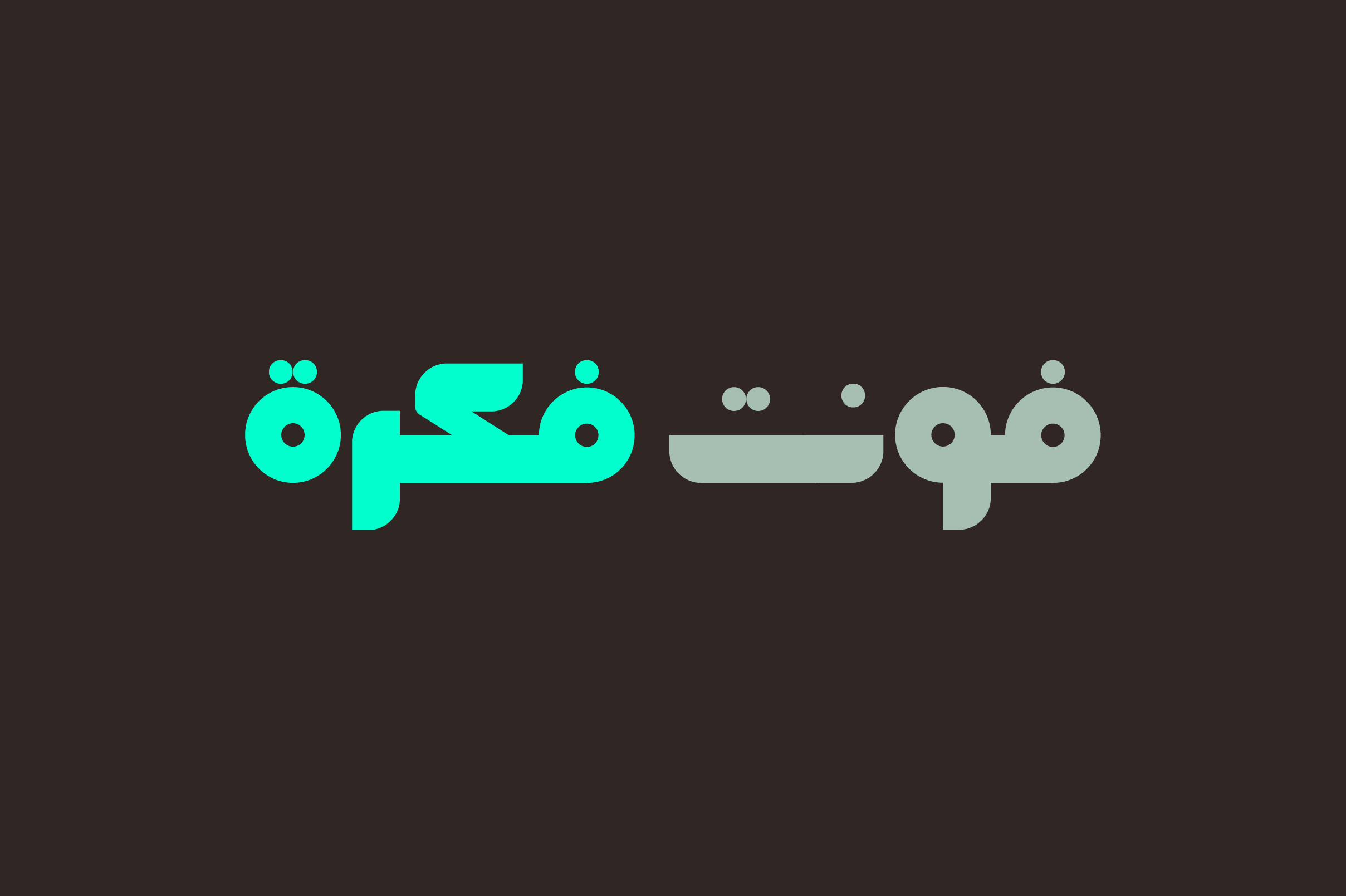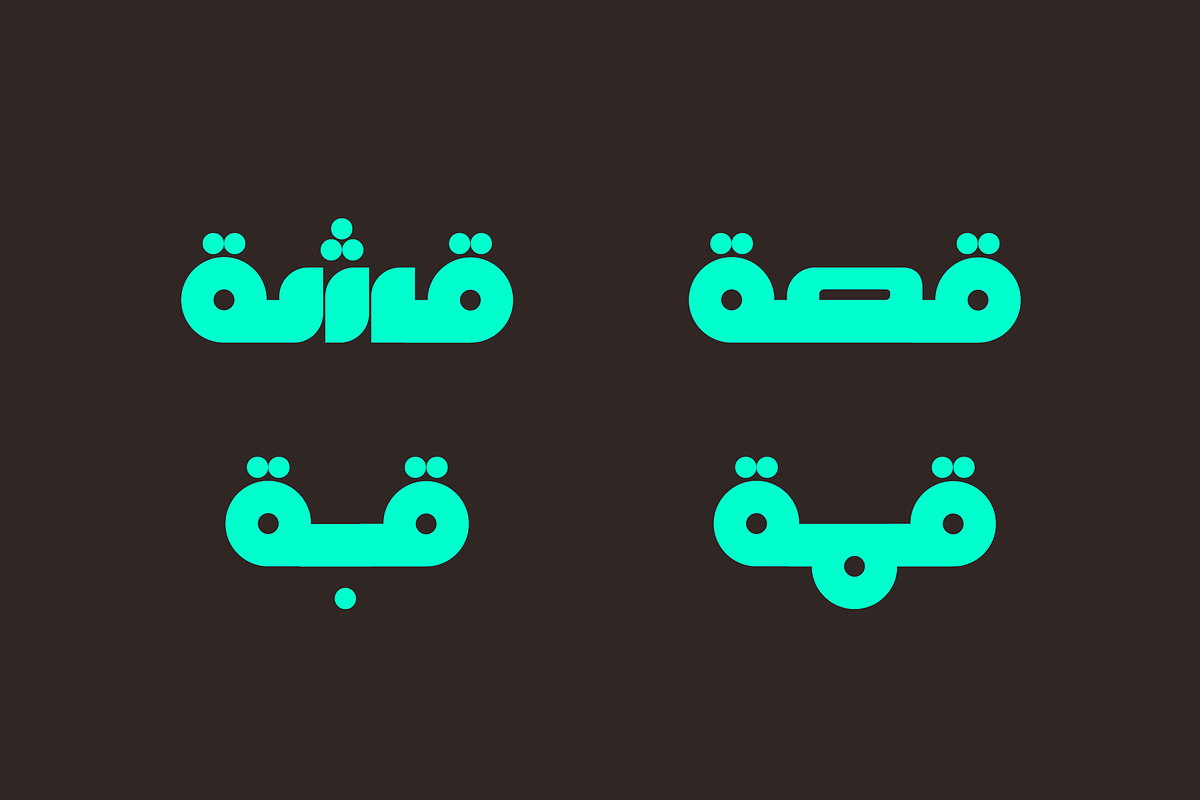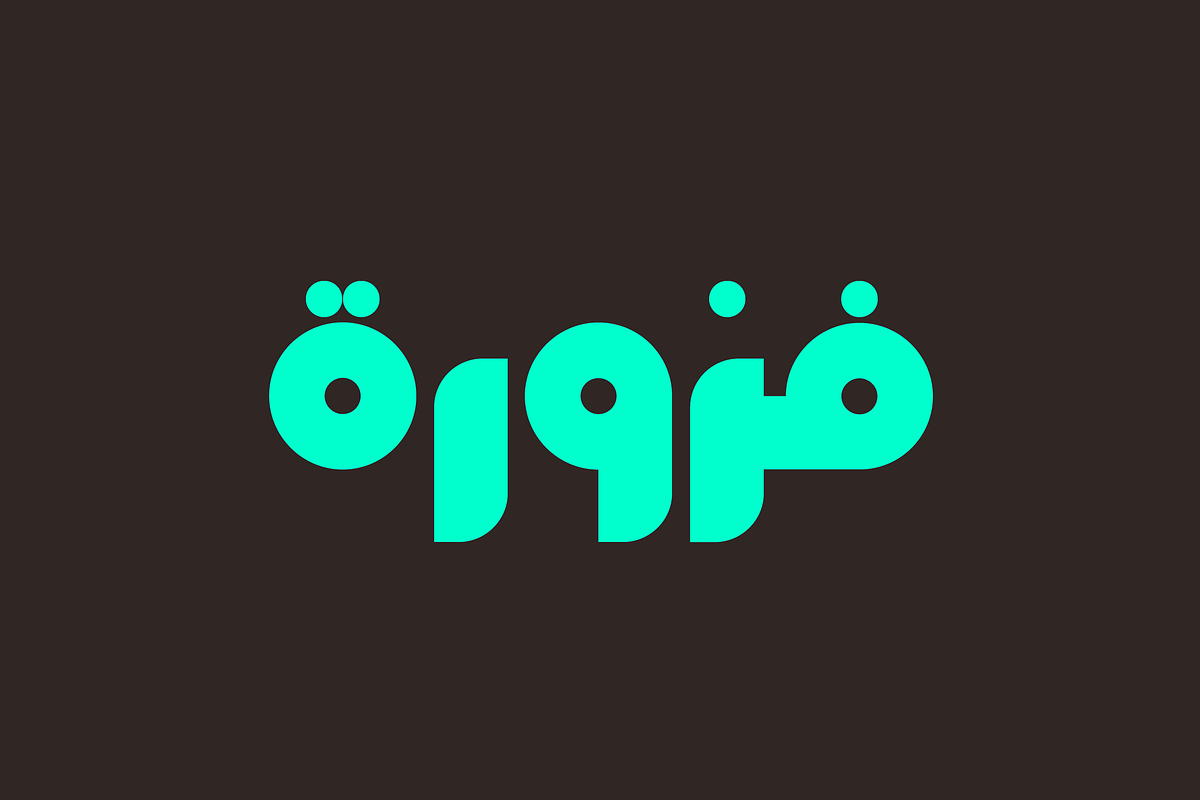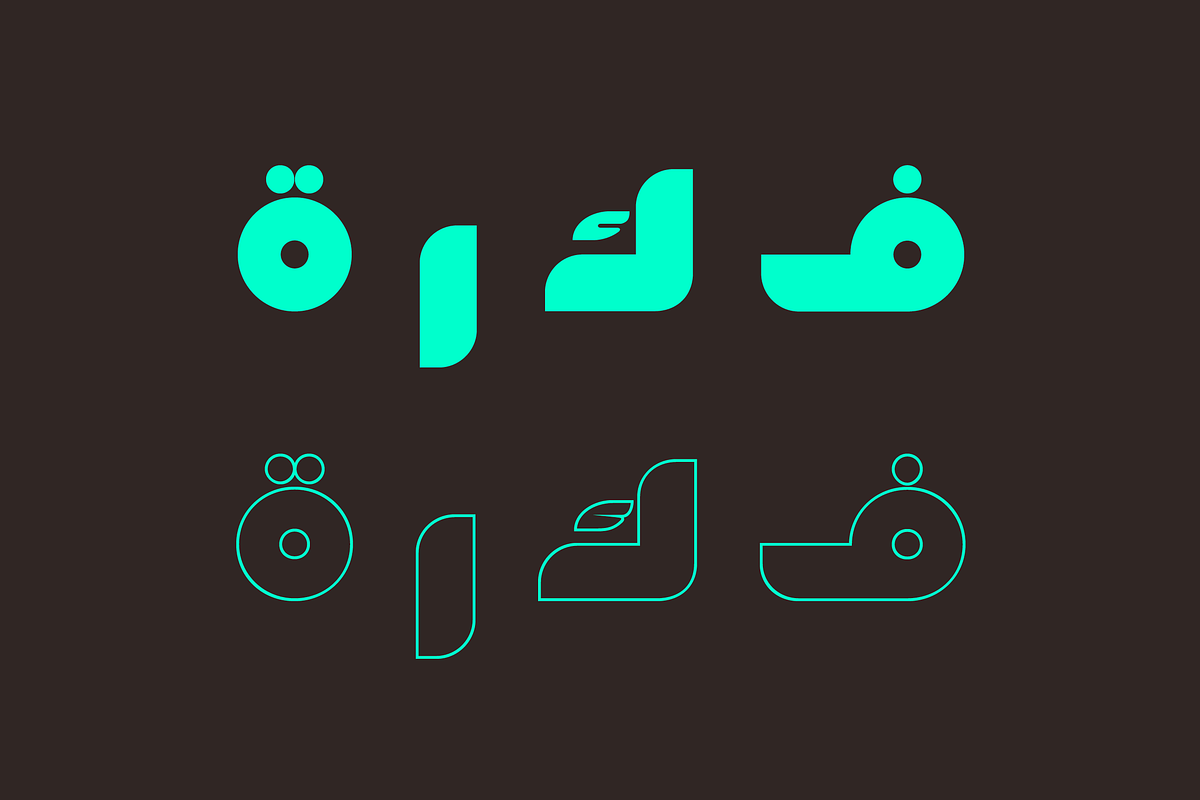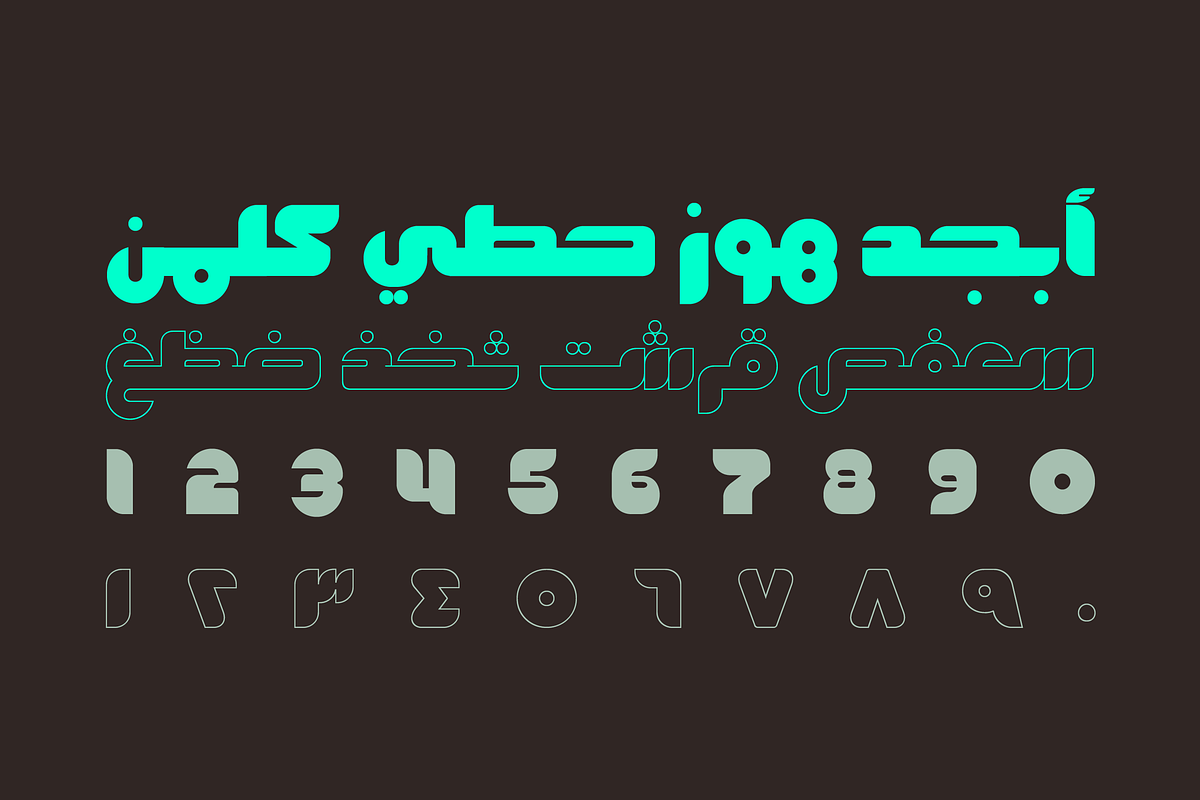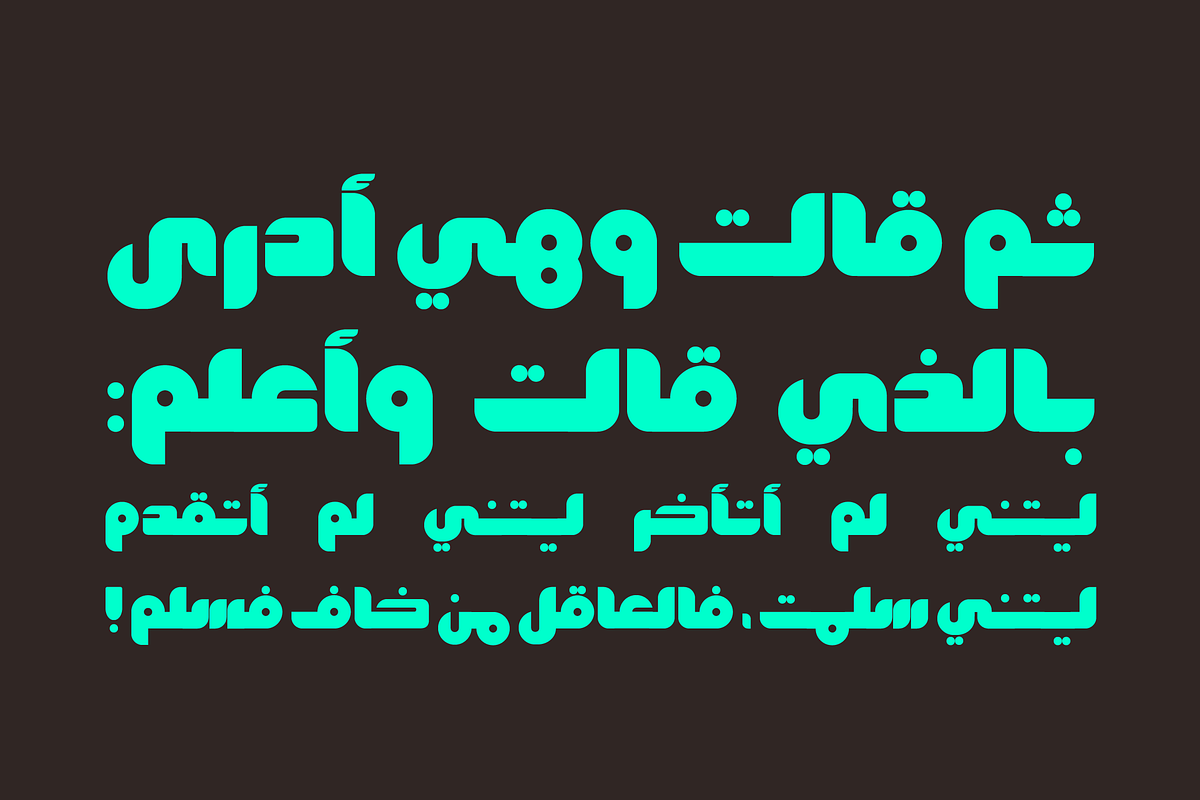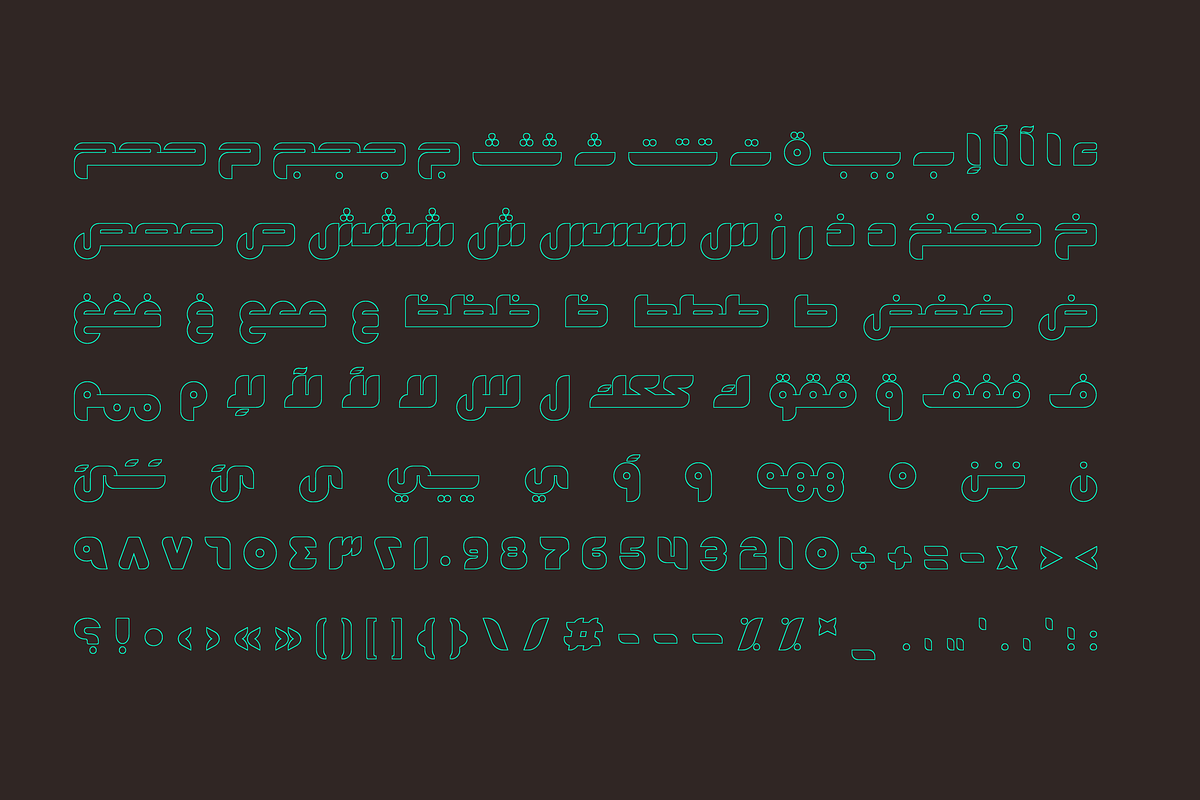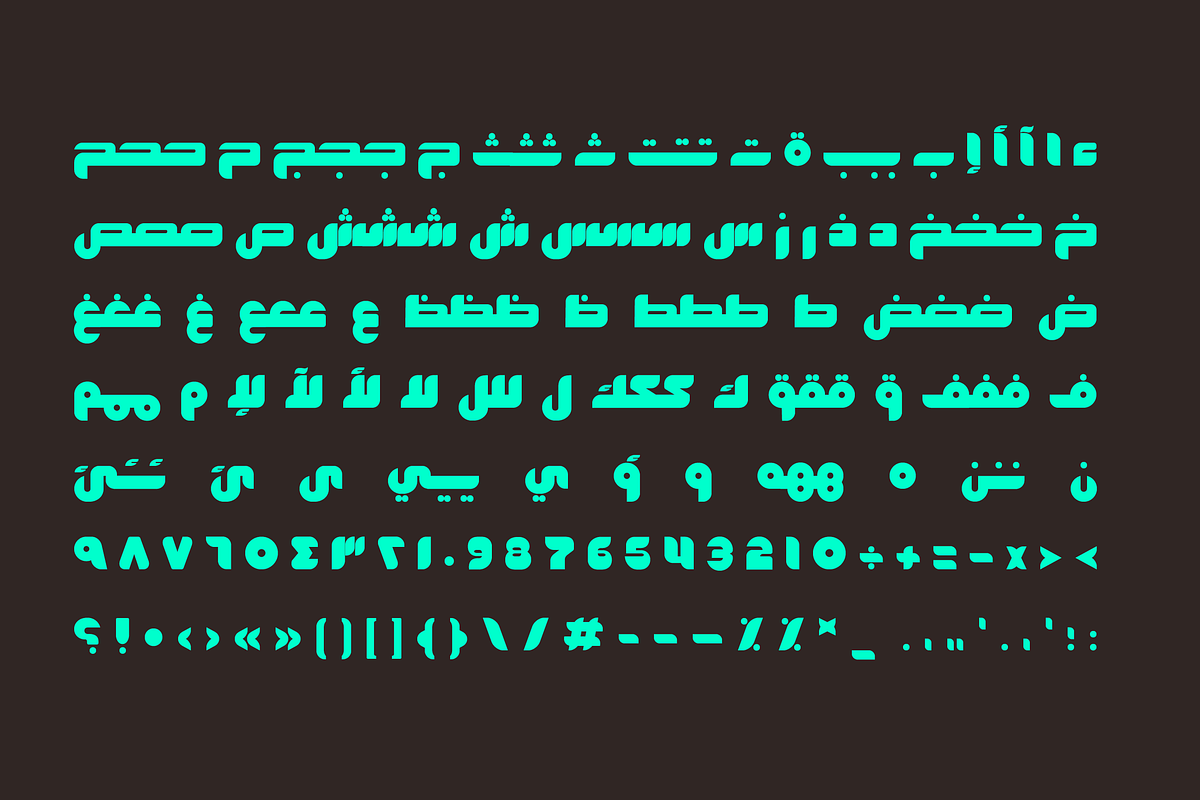
Fekrah - Arabic Font
Fekrah is the Arabic word for Idea. Fekrah is a contemporary Arabic font that suits visual identities and modern design projects. It consists of two styles, opaque and outlined.